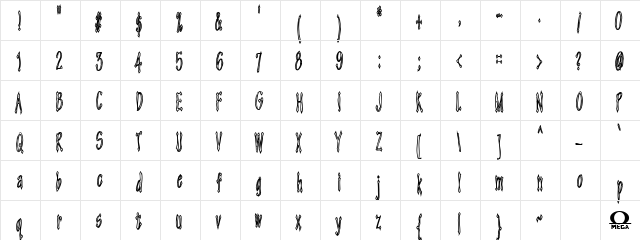
Androganonamous Regular
Design Context for Androganonamous Typeface
Androganonamous is a composed and adaptable typeface that performs quietly and consistently across a wide range of design contexts.